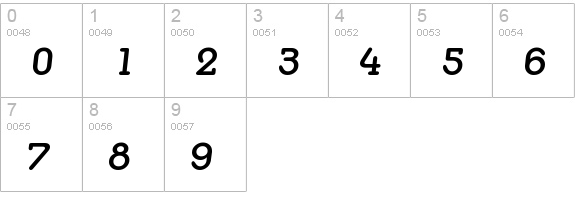
Medfly Bold Font Details
Medfly Bold is a strong, high-contrast variant in the Medfly typeface family \xE2\x80\x94 well suited to headlines, attention-grabbing titles, and strong calls-to-action.
Medfly Bold font is a modern and stylish typeface that exudes confidence and sophistication. With its bold and eye-catching design, this font is perfect for making a statement in your projects. The sharp lines and elegant curves of Medfly Bold add a touch of professionalism to any text or design. The best part? Medfly Bold is completely free to download at FontsMarket.com. Whether you're working on a branding project, a poster design, or any other creative endeavor, this font is sure to elevate your work to the next level. Don't miss out on the opportunity to enhance your designs with the striking Medfly Bold font. Download it for free now at FontsMarket.com and let your creativity shine!